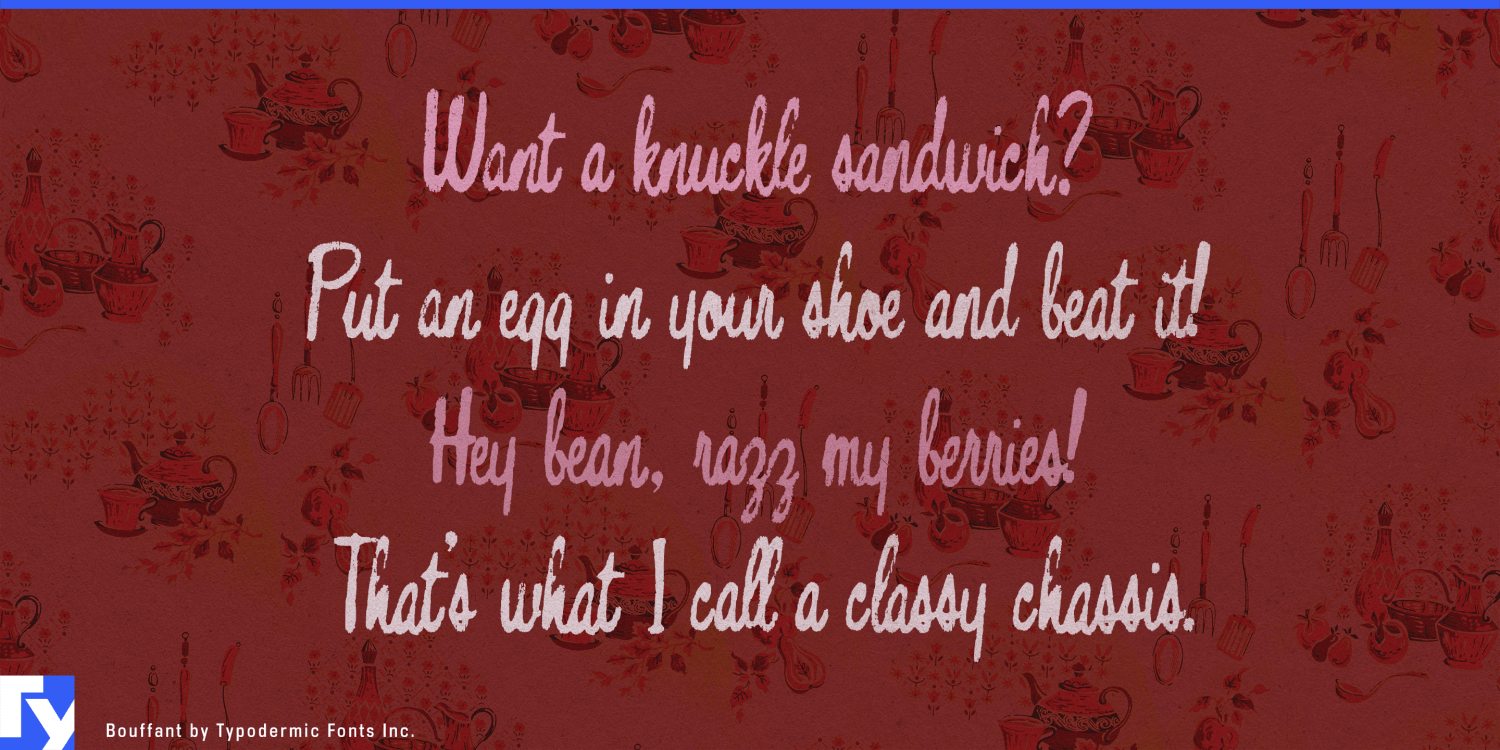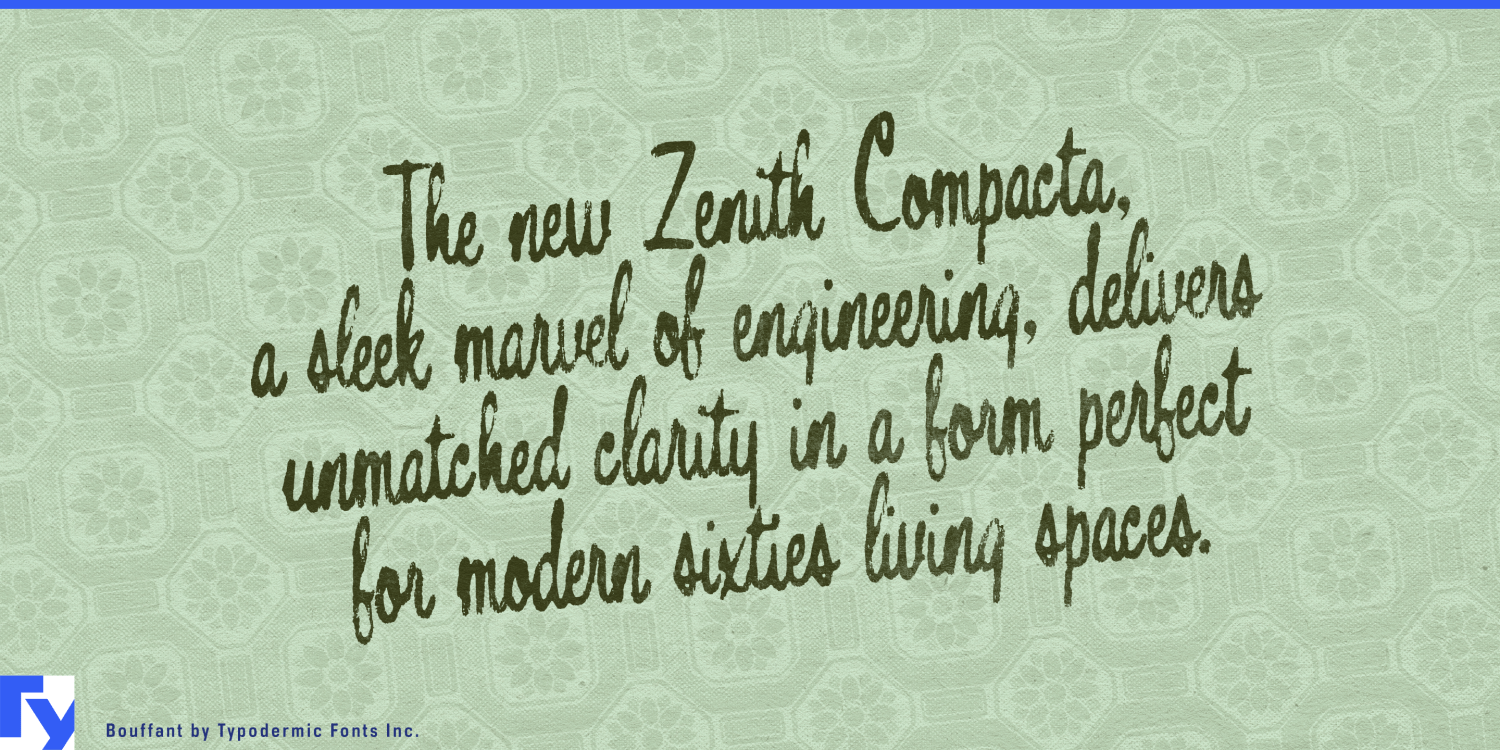
Step into the 1950s with Bouffant, a script typeface that captures the era’s iconic style. This font family blends compact retro curls with a touch of genuine grit, creating a perfect balance of glamour and authenticity. Bouffant’s bespoke…